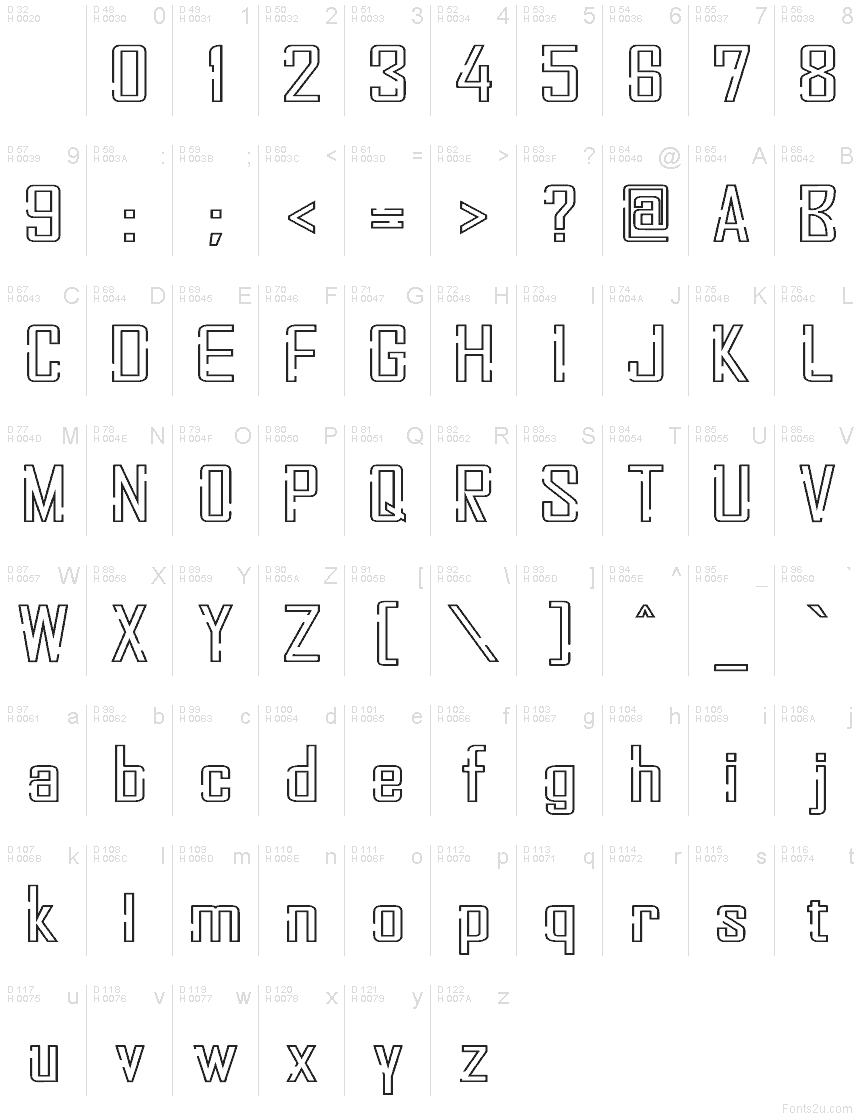
Stellarum
Stellarum font by 3w Protype is a display typeface with futuristic geometric elements, clean lines, and a technological influence. Similar to constellations formed by stars in the galaxy, the letters of Stellarum are modern aesthetic outlines that are connected to each other. Therefore, this free techno display font has all lowercase letters appear hollow rather than filled.
When aiming for an artistic project with a futuristic feel, make sure to check out Stellarum. Use it in games and movie titles, banners and posters for outer space events or even on social media posts related to your project! Marketing materials like banners or leaflets also benefit from this resource as much as website headers substitute.